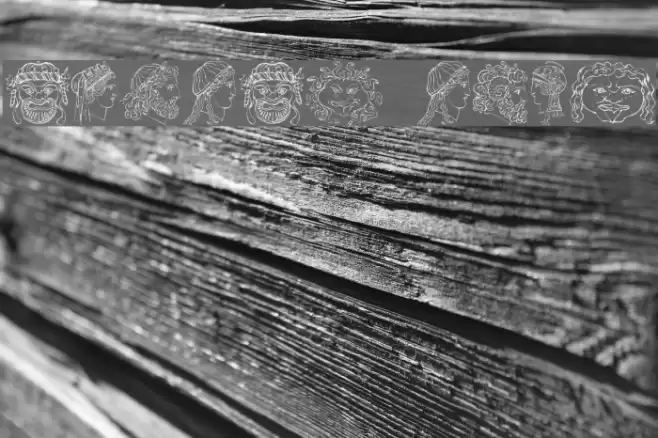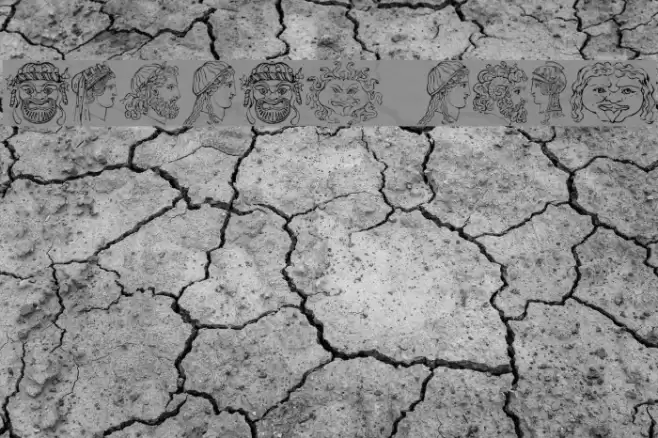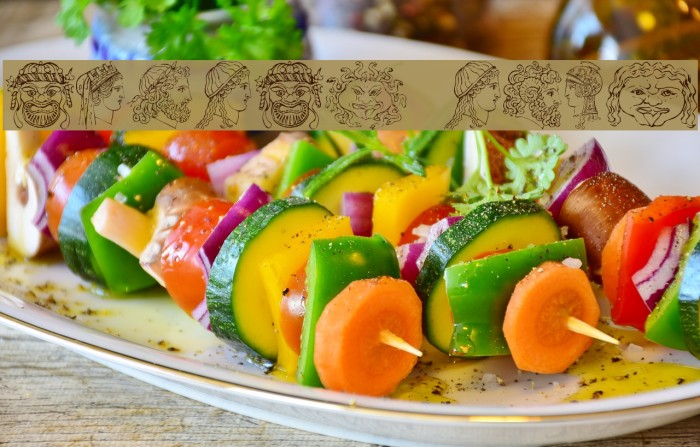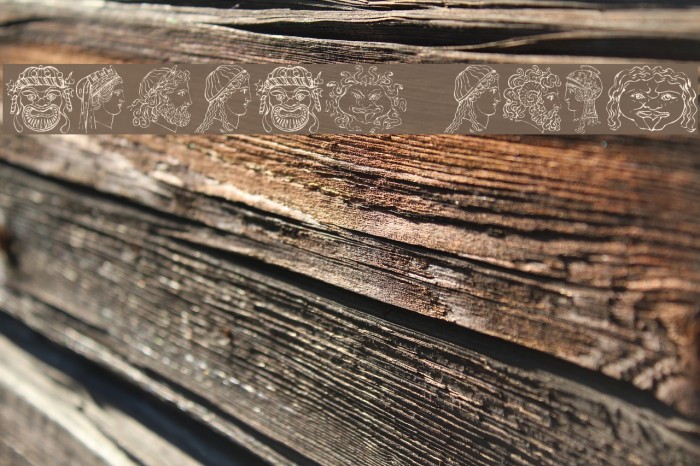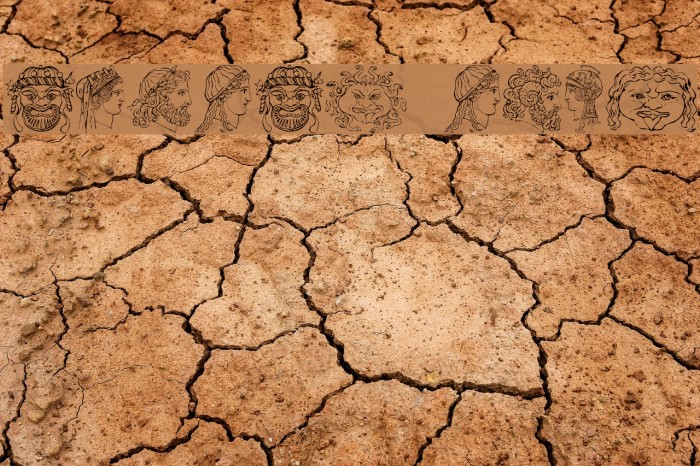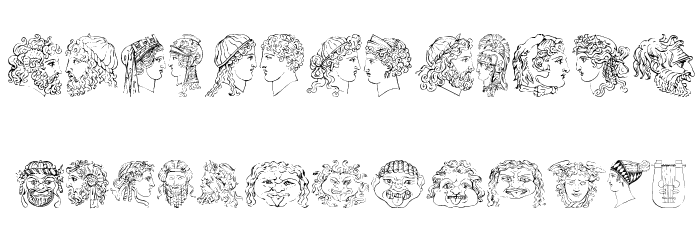
Ancient Heads Font
Ancient Heads Description
A decorative font featuring detailed line art illustrations of ancient Greek and Roman heads, mythological figures, and classical motifs, rendered in a hand-drawn, sketch-like style.
Decorative font with ancient classical head illustrations from Dingbats fonts.
- Proposed Projects: Historical posters, museum brochures, educational materials, themed event invitations, book covers.
- Overall Style: Vintage, Decorative, Classical
- Use Case: Logos, Headlines, Thematic graphics, Illustrative elements